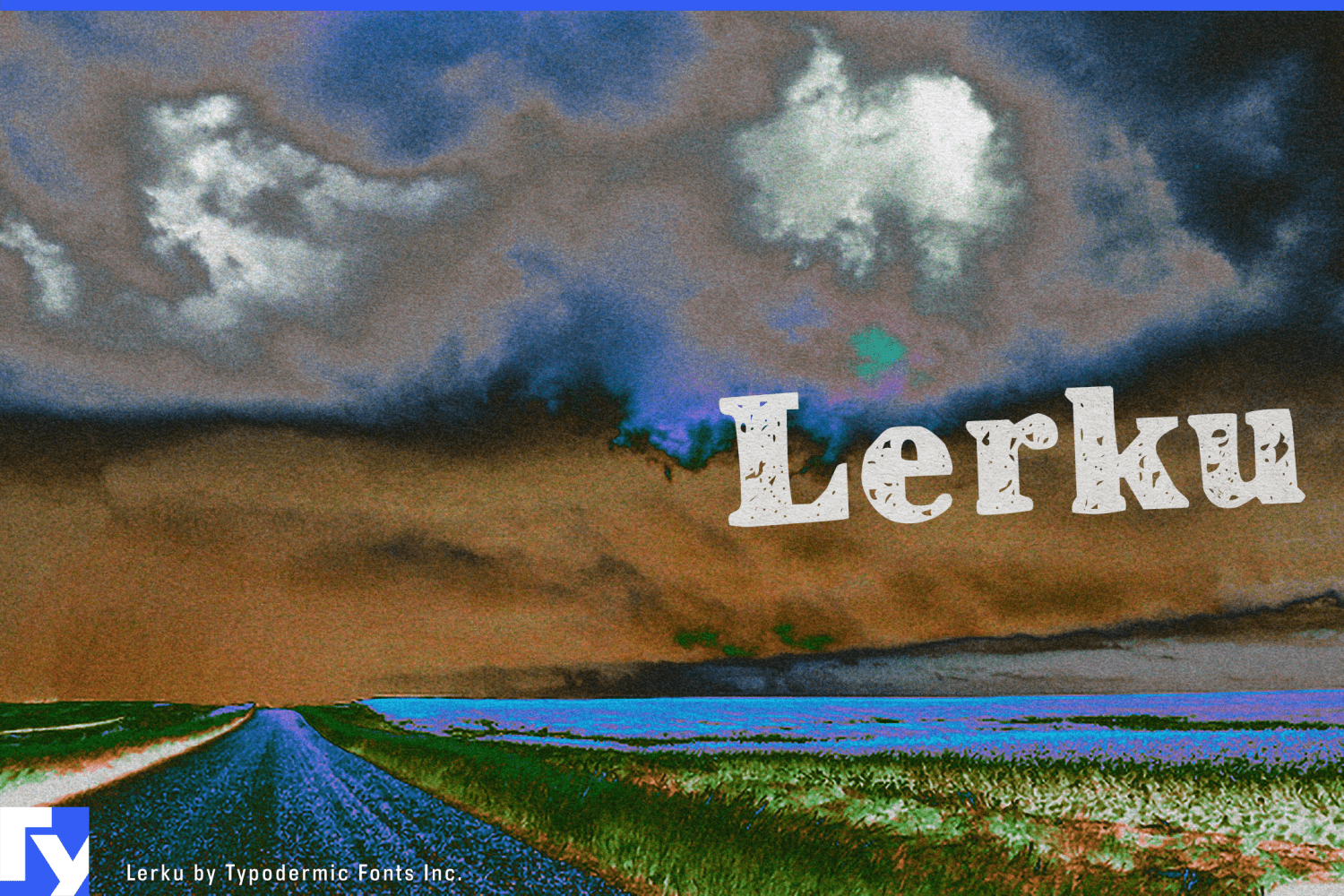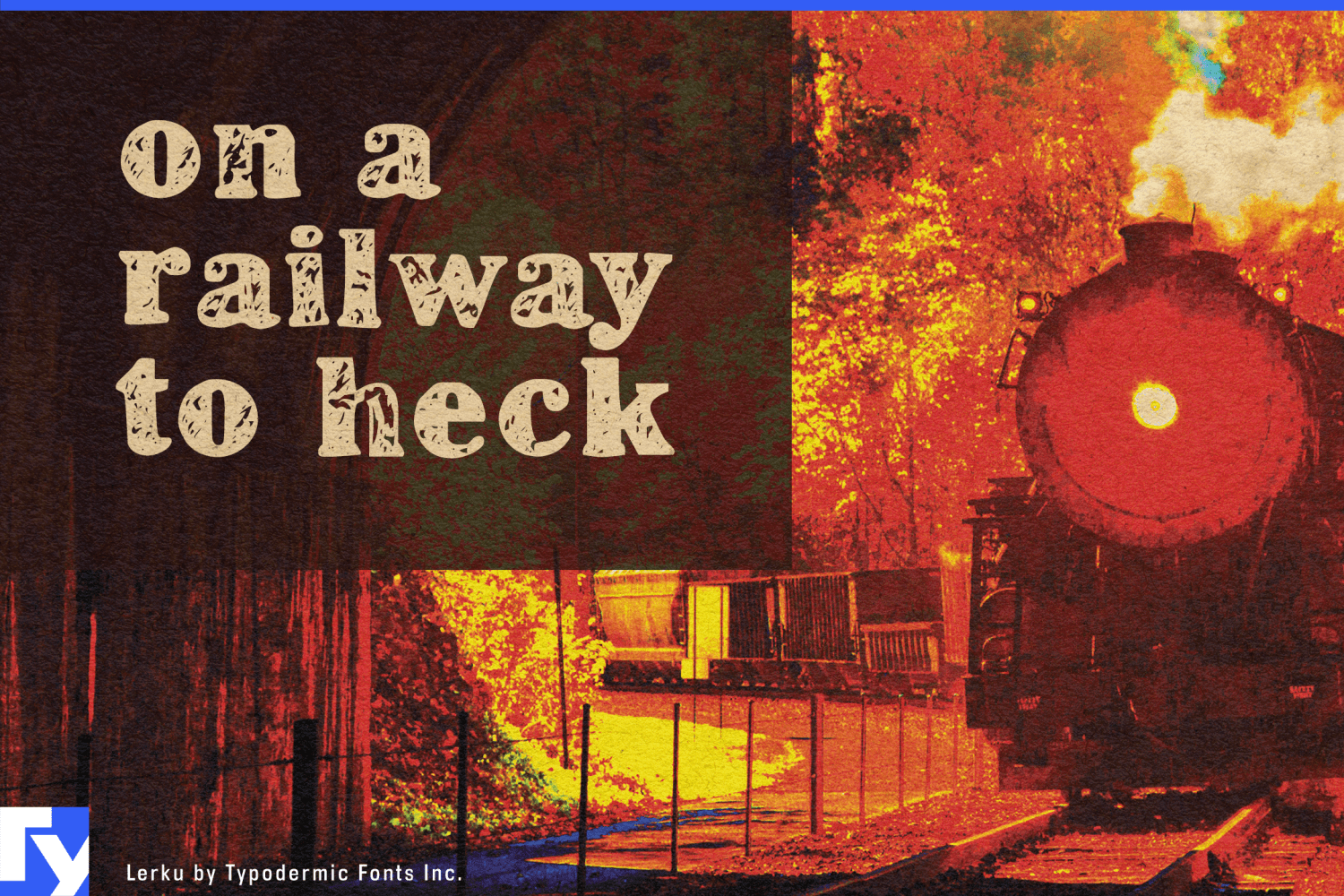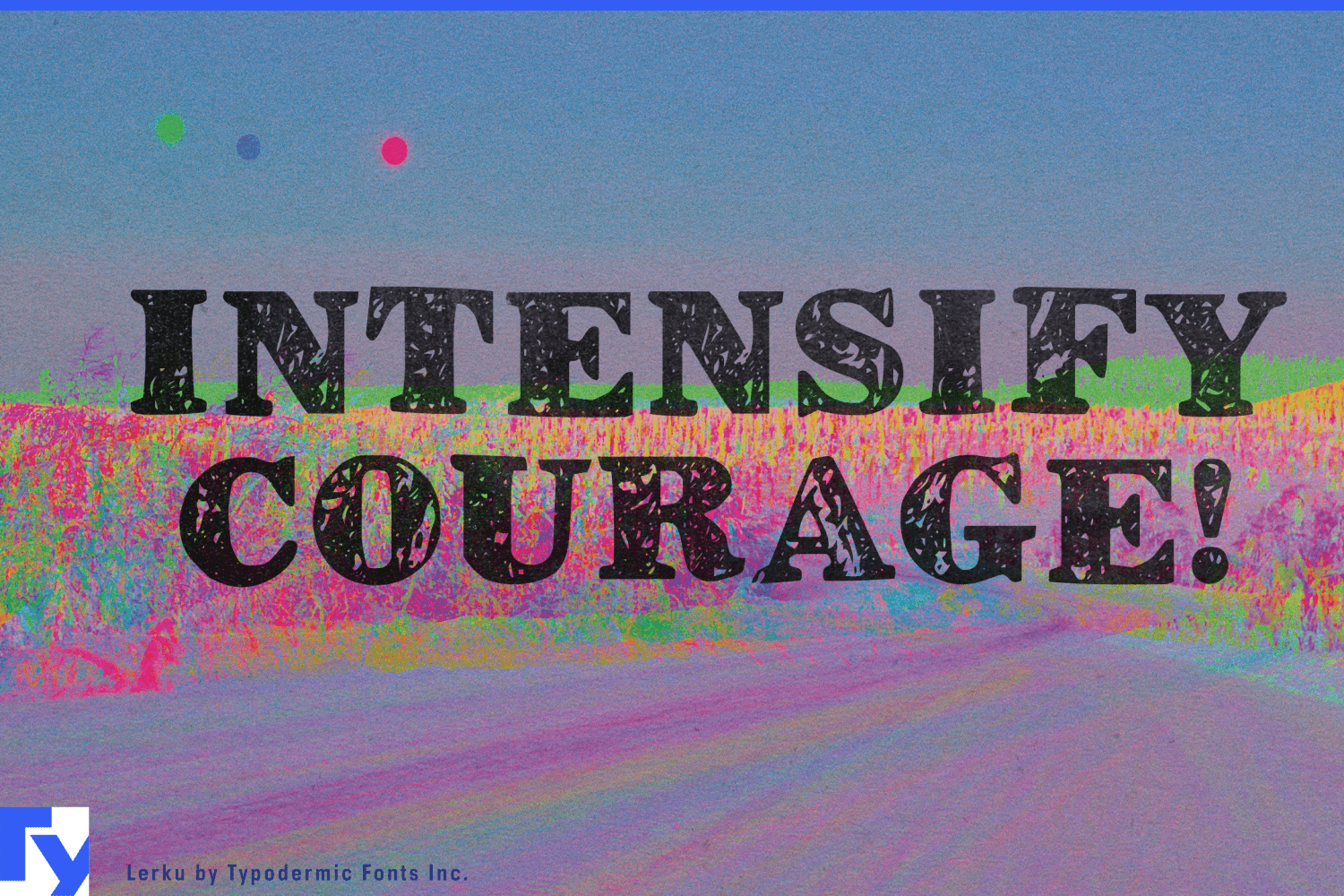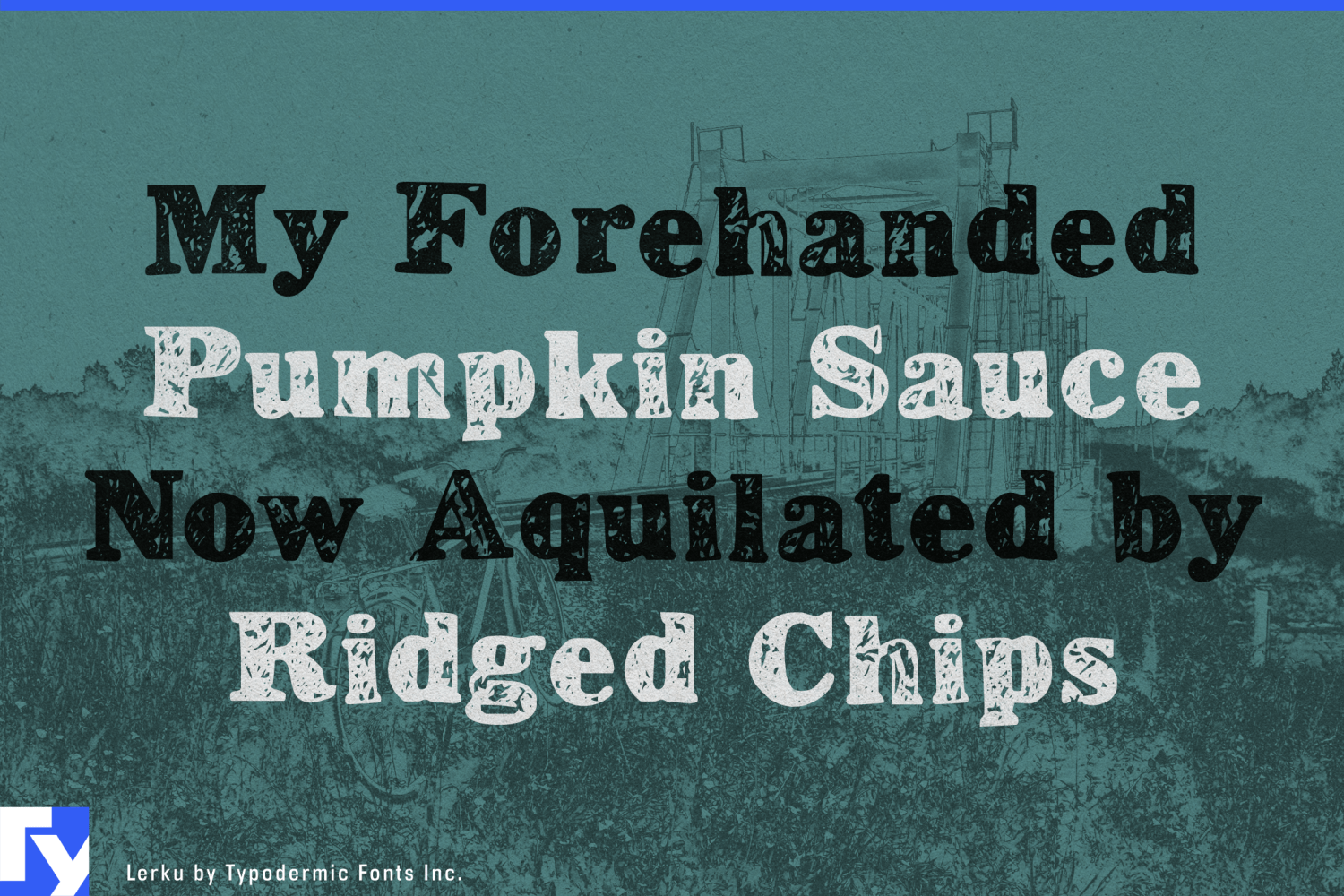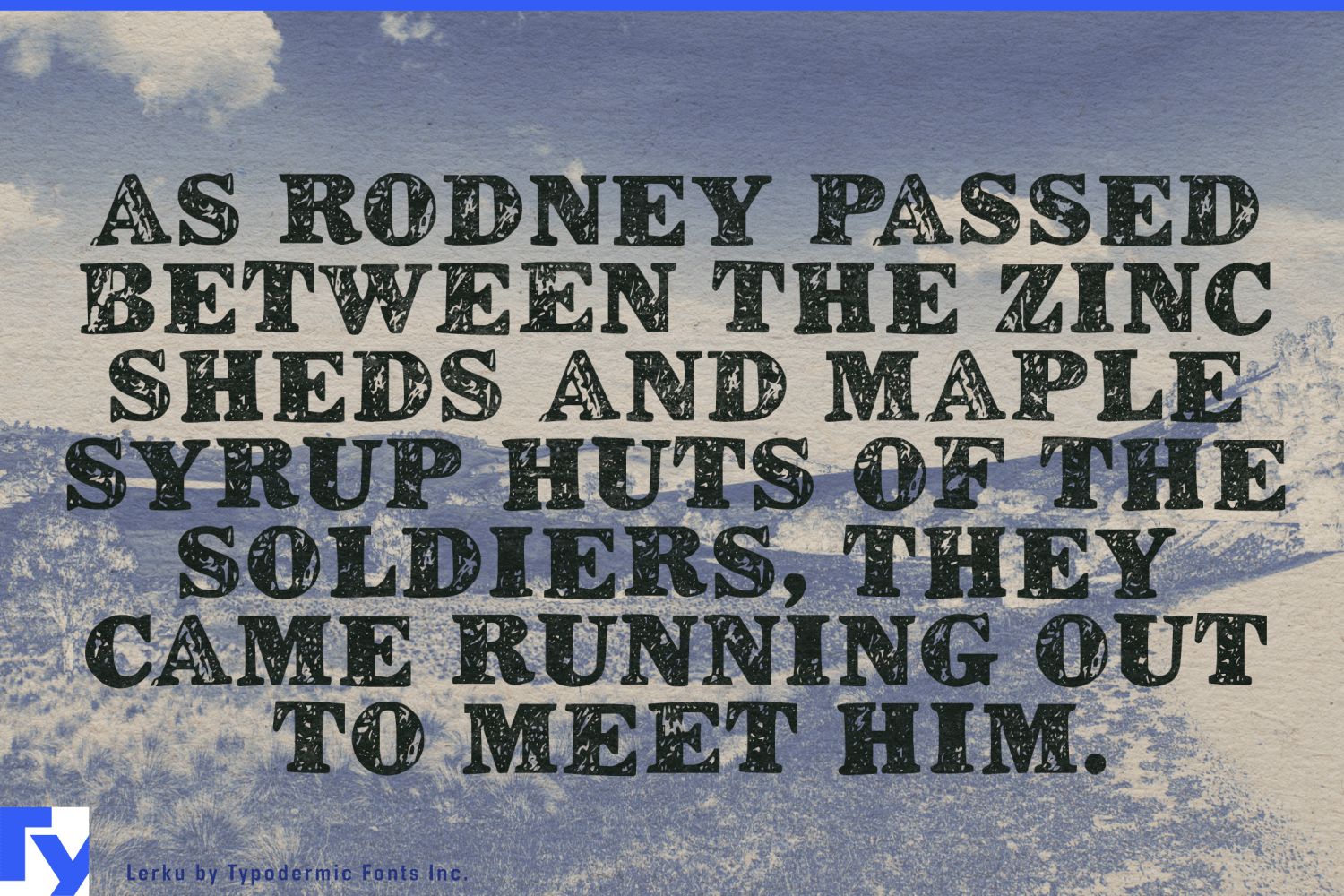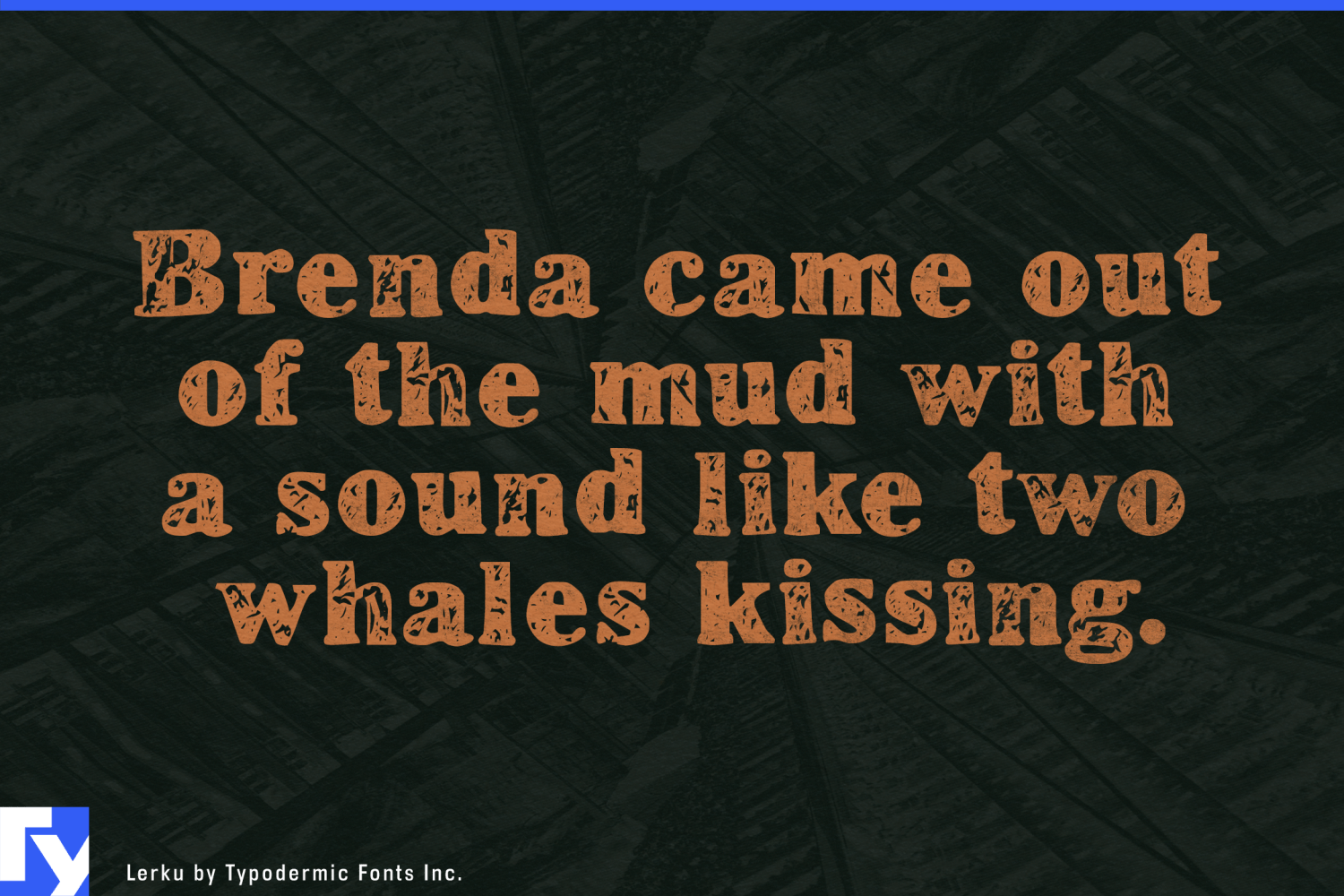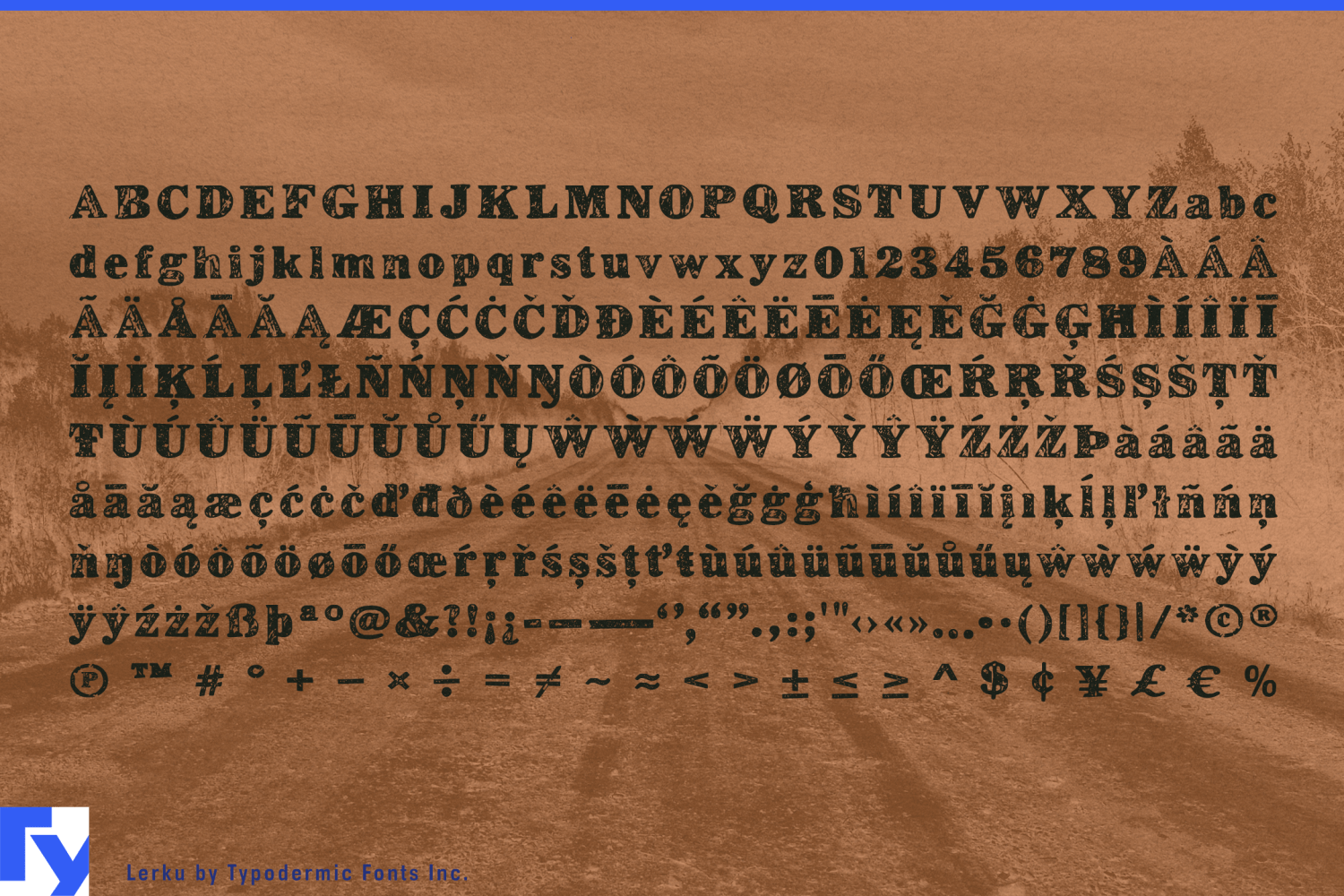
Lerku
Its chunky serif forms have irregular traced edges that settle into the impression of imperfect ink at small and medium display sizes. The relatively economical outlines also make Lerku more practical as a textured webfont than an intricately detailed distressed face. It is suited to changing labels and interface headings rather than enormous titles whose contours will be examined individually.
Digital card games and tabletop-inspired interfaces give that texture a practical role. Card titles, deck categories, character names, scenario headings and expansion labels may number in the hundreds, with new content added long after launch. Lerku keeps those names inside a world of worn cards, printed manuals and handled game pieces without converting each phrase into separate artwork. A cleaner companion face can carry rules, statistics, prices and accessibility-critical information.
Narrative, crafting and management games create similar demands. Recipe names, inventory categories, workshop headings, railway stations, cargo types, journal sections, map regions and evidence labels all need atmosphere while remaining editable. Lerku can make them feel printed, stamped, salvaged or passed from hand to hand while quantities, controls and tooltips remain clear in conventional interface type.
Procedural and player-generated content pushes the problem further. A game may create settlements, missions, artifacts, factions or seasonal events that were never available for manual lettering. Virtual tabletop platforms and campaign tools must accommodate names invented by every game master and player. Lerku allows unpredictable text to inherit the same weathered treatment as the rest of the product.
Built-in ligatures help recurring letter combinations avoid the mechanical sameness common to distressed fonts. Browser-based campaign managers, digital rulebooks and companion sites can use Lerku for scenario names, journal tabs, character classes and chapter markers while keeping the text selectable, searchable and localizable.
Lerku is strongest where its wear is perceived as texture rather than illustration: card titles, quest names, inventory headings, location labels and short interface prompts. It gives large systems of changing game text the handled character of imperfect printing without requiring every phrase to be distressed by hand.